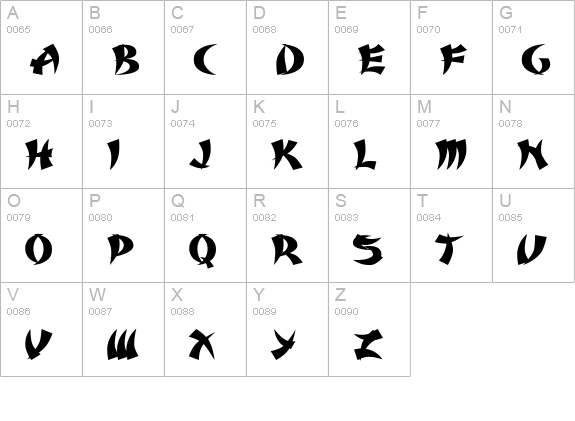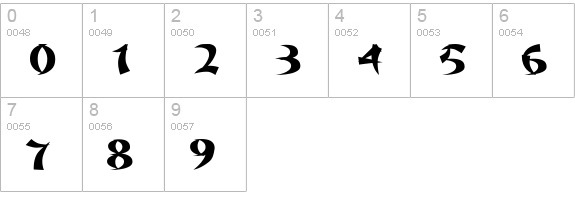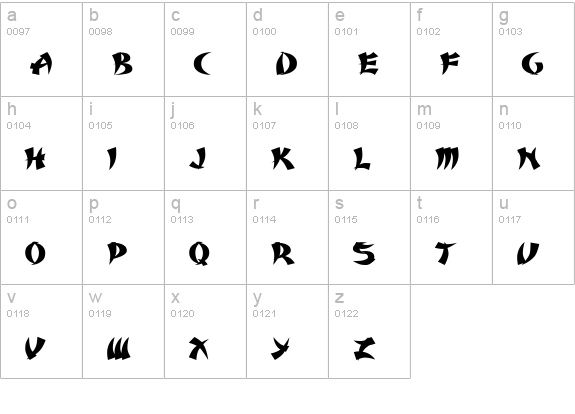
Karate Font Details
Karate font is a powerful and dynamic typeface that perfectly captures the spirit and energy of the martial art it is named after. With its sharp lines and bold strokes, this font exudes strength and precision, making it an ideal choice for any design project that requires a strong and impactful visual presence. This font is not only visually striking, but it also offers a level of versatility that allows it to be used in a variety of settings. Whether you are designing a poster for a martial arts tournament, creating a logo for a sports team, or even designing a website for a fitness studio, Karate font will effortlessly enhance your design and make it stand out from the crowd. One of the best things about Karate font is that it is available for free download at FontsMarket.com. This means that you can access this amazing typeface without having to spend a penny. FontsMarket.com is a reputable and reliable source for high-quality fonts, and they offer a wide range of options for designers and creatives to choose from. With Karate font being freely available, it allows designers of all levels to access a professional and unique typeface that can elevate their designs to new heights. So don't miss out on this incredible opportunity to download Karate font for free at FontsMarket.com. Start incorporating this powerful and striking typeface into your designs today and watch as it adds a whole new level of impact and creativity to your work.